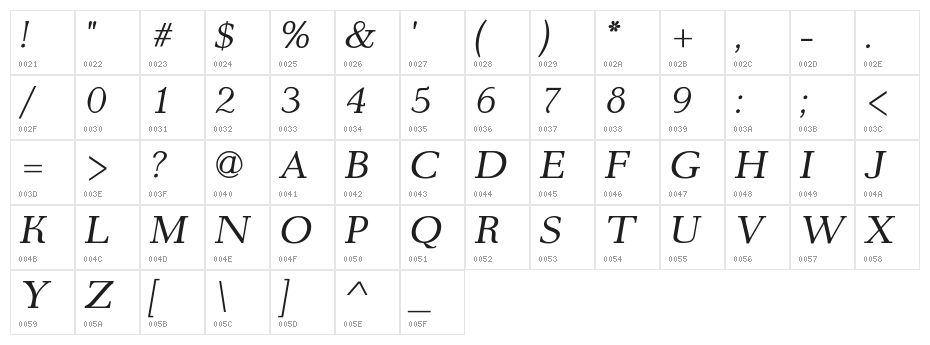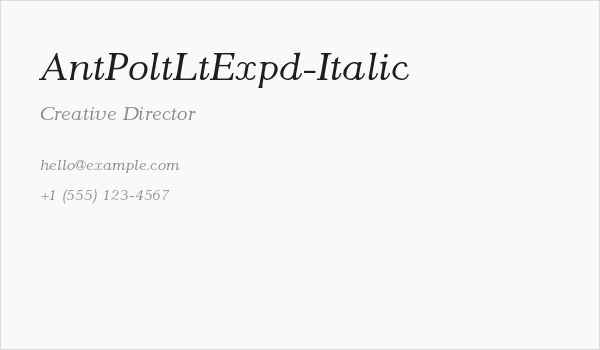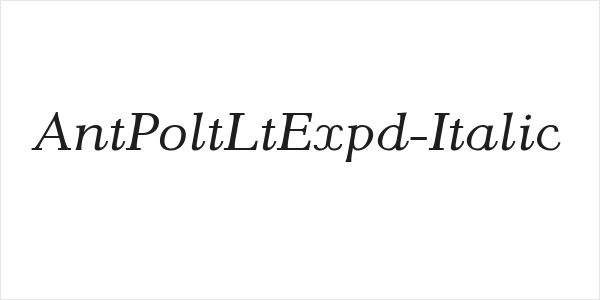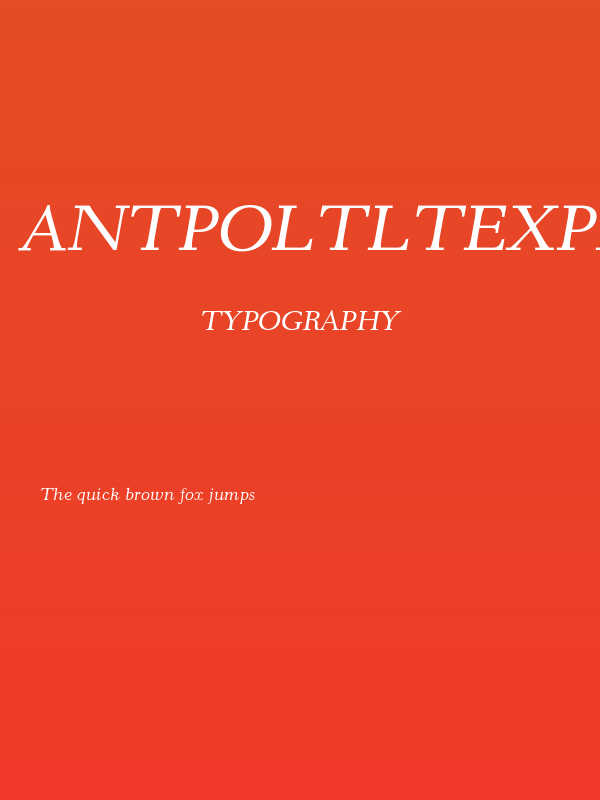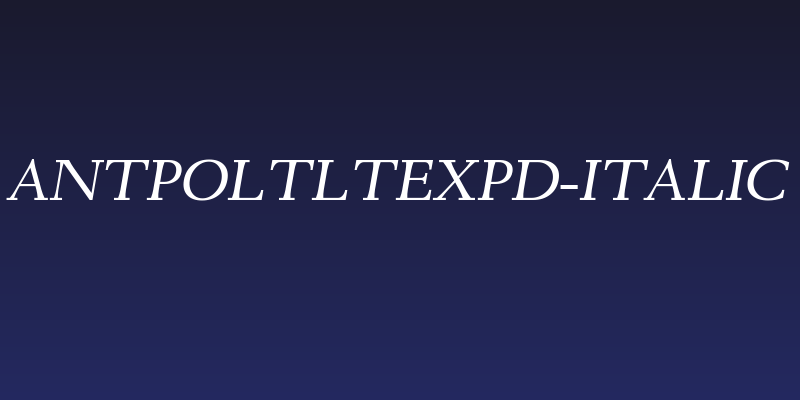
AntPoltLtExpd-Italic Font
AntPoltLtExpd-Italic Description
This font features a classic serif style with elegant, flowing lines and a slight slant, giving it an italic appearance. The characters are well-proportioned, with a moderate contrast between thick and thin strokes, adding to its readability and sophistication. The uppercase letters are bold and commanding, while the lowercase letters maintain a graceful and fluid form. The numerals are clear and distinct, making them easily legible. Special characters are designed with the same attention to detail, ensuring consistency throughout the font. The overall aesthetic is timeless and versatile, suitable for a variety of design applications.
| Proposed Projects | Ideal for editorial design, book covers, formal invitations, and branding projects that require a touch of elegance and tradition. |